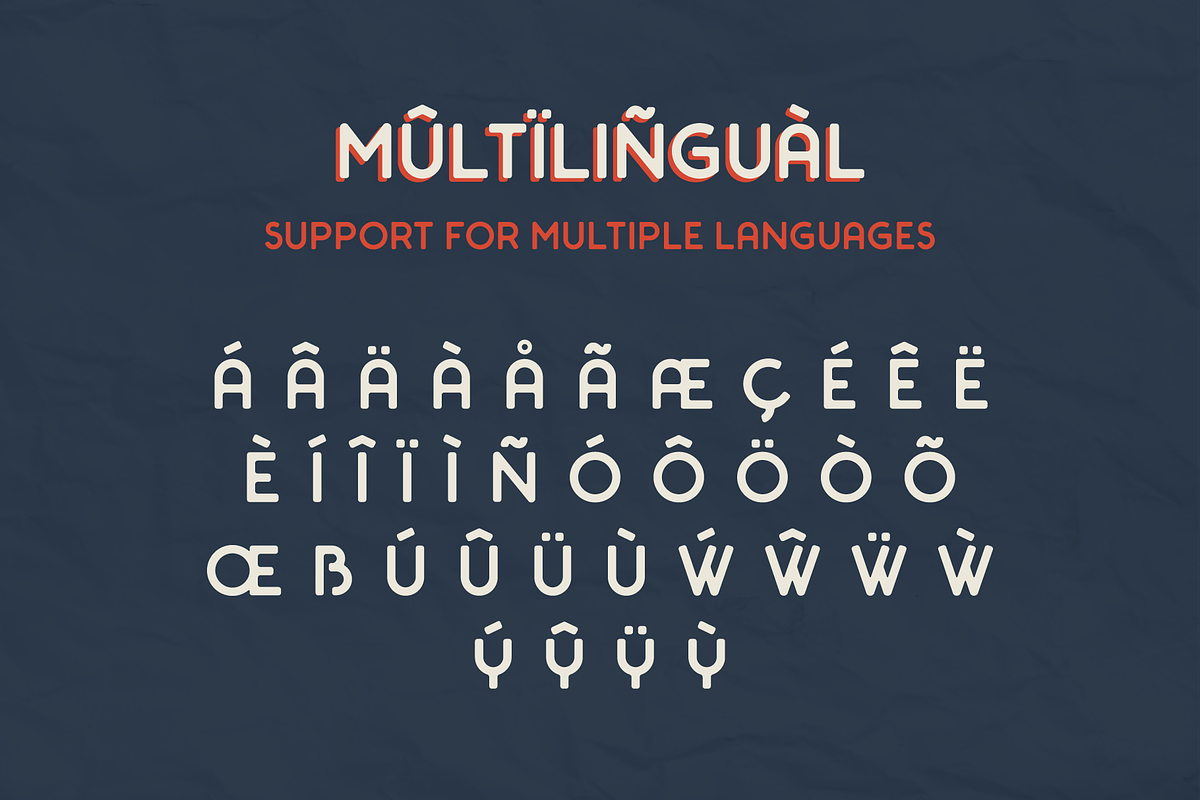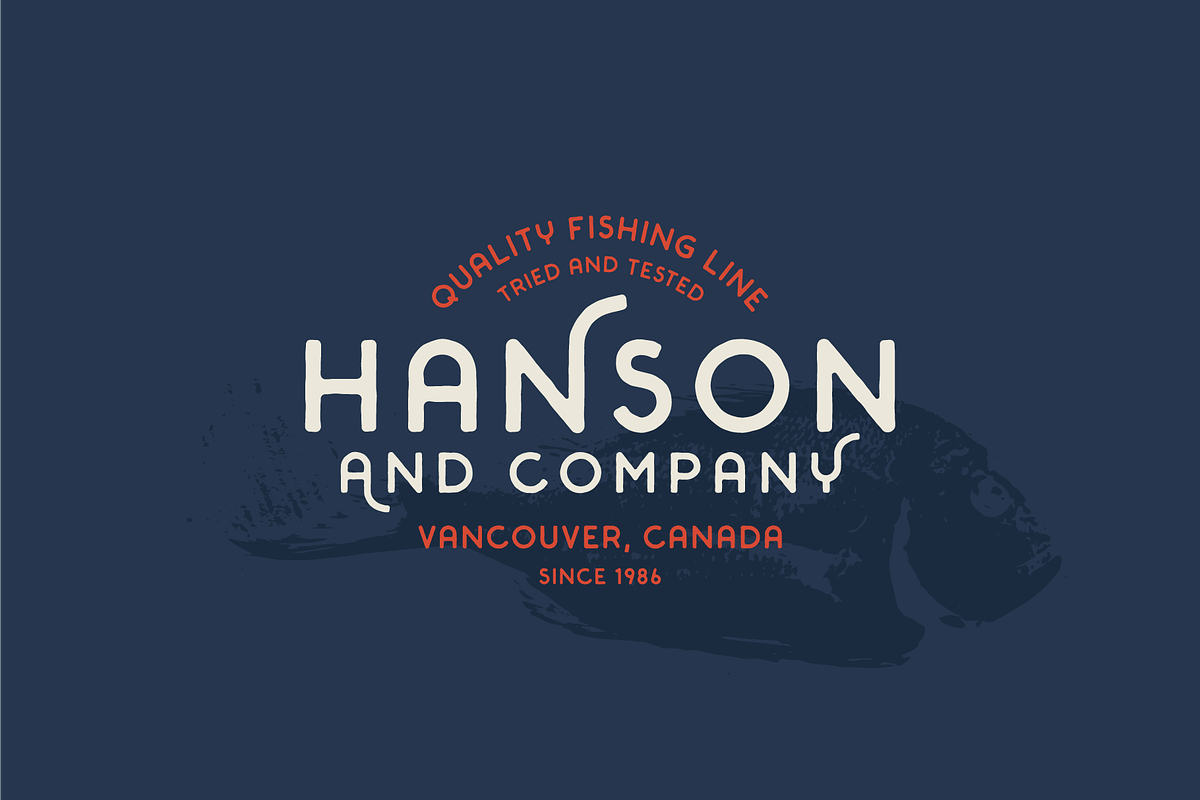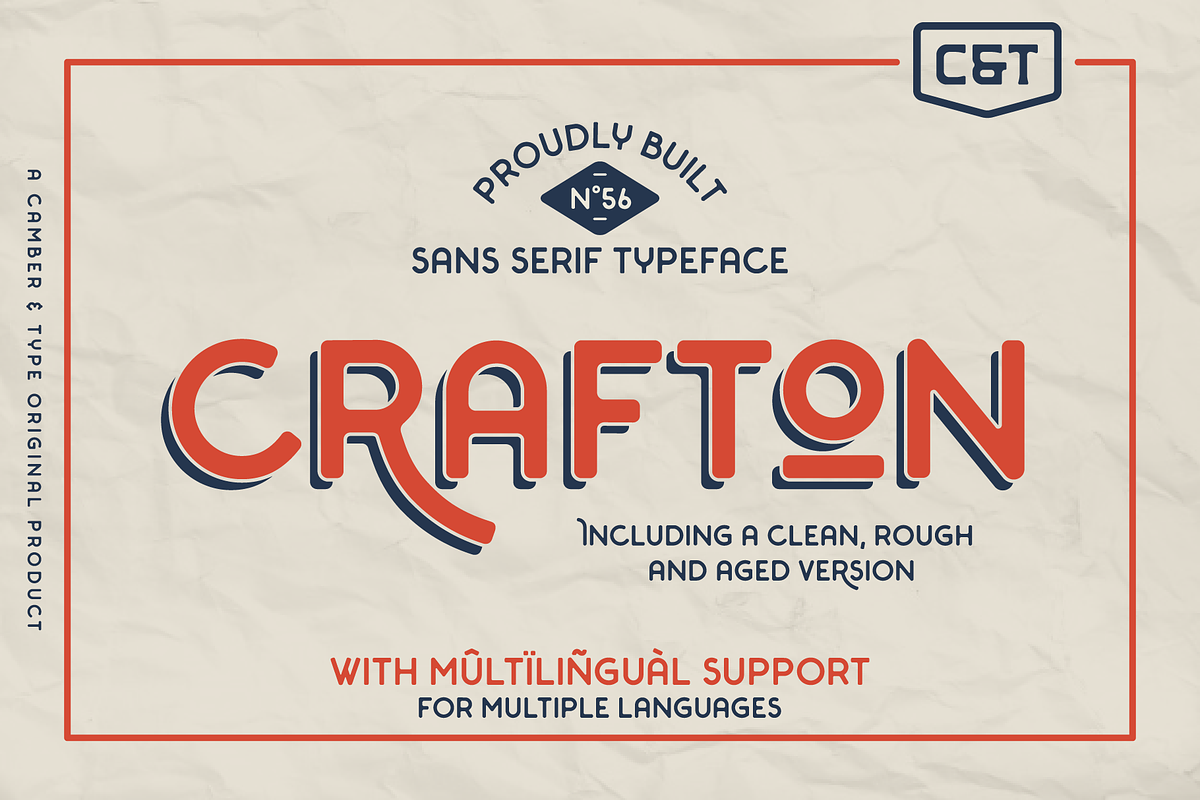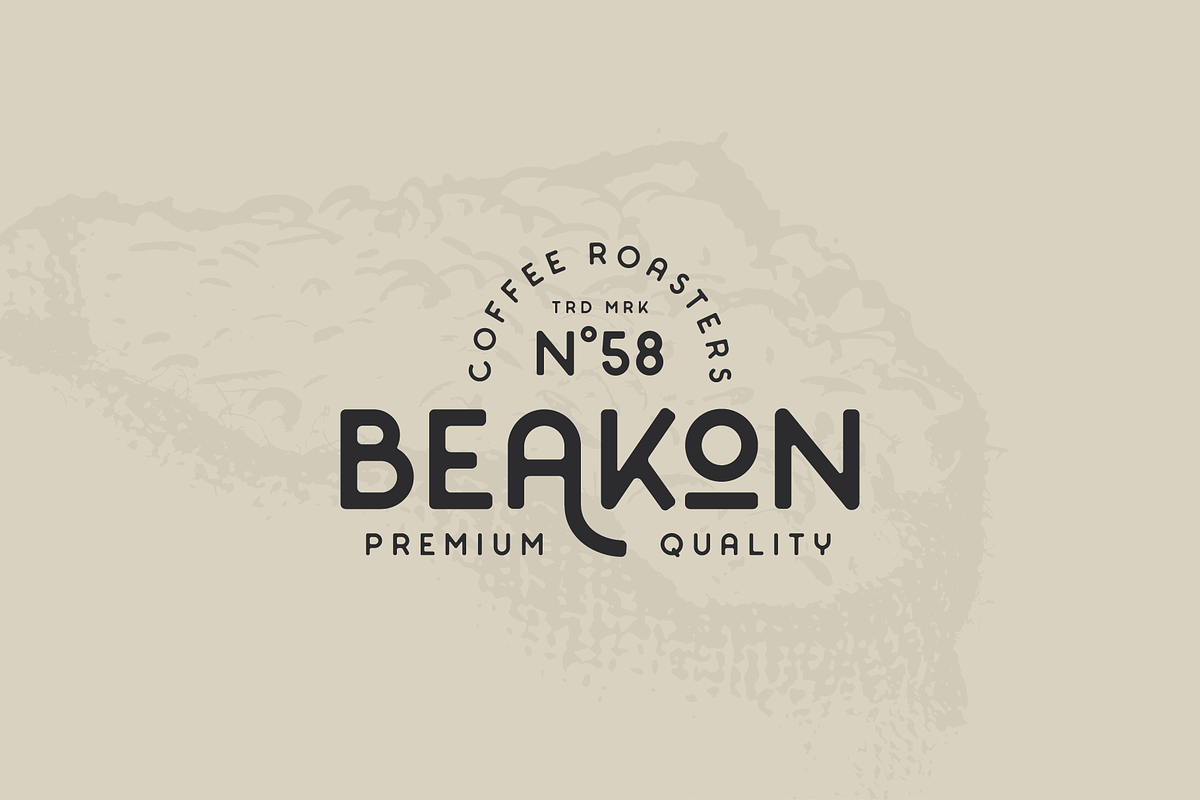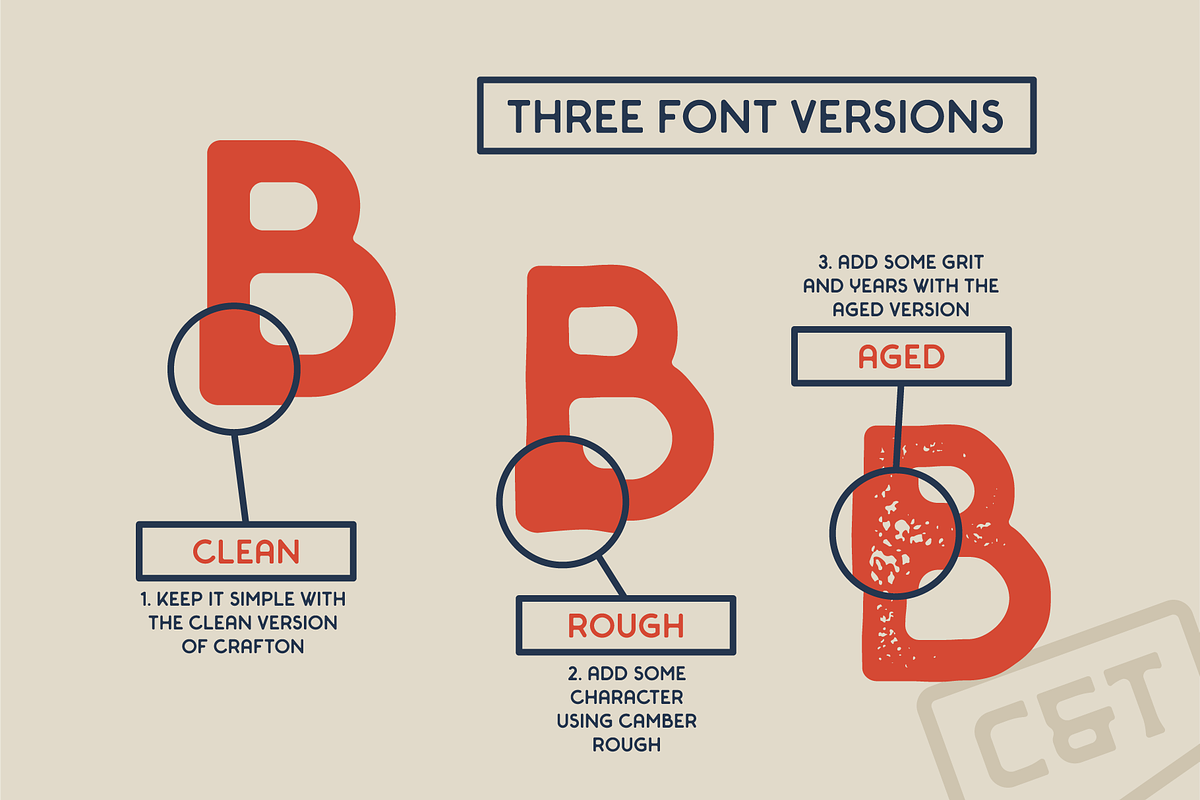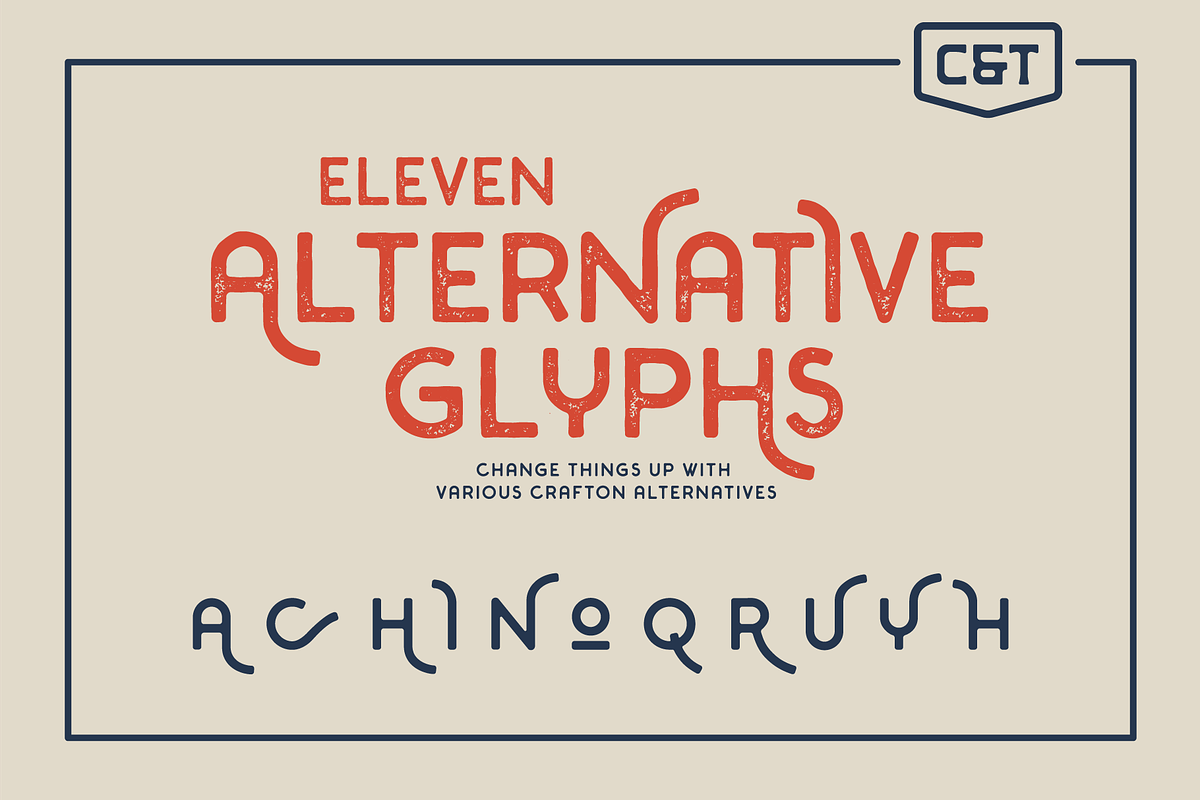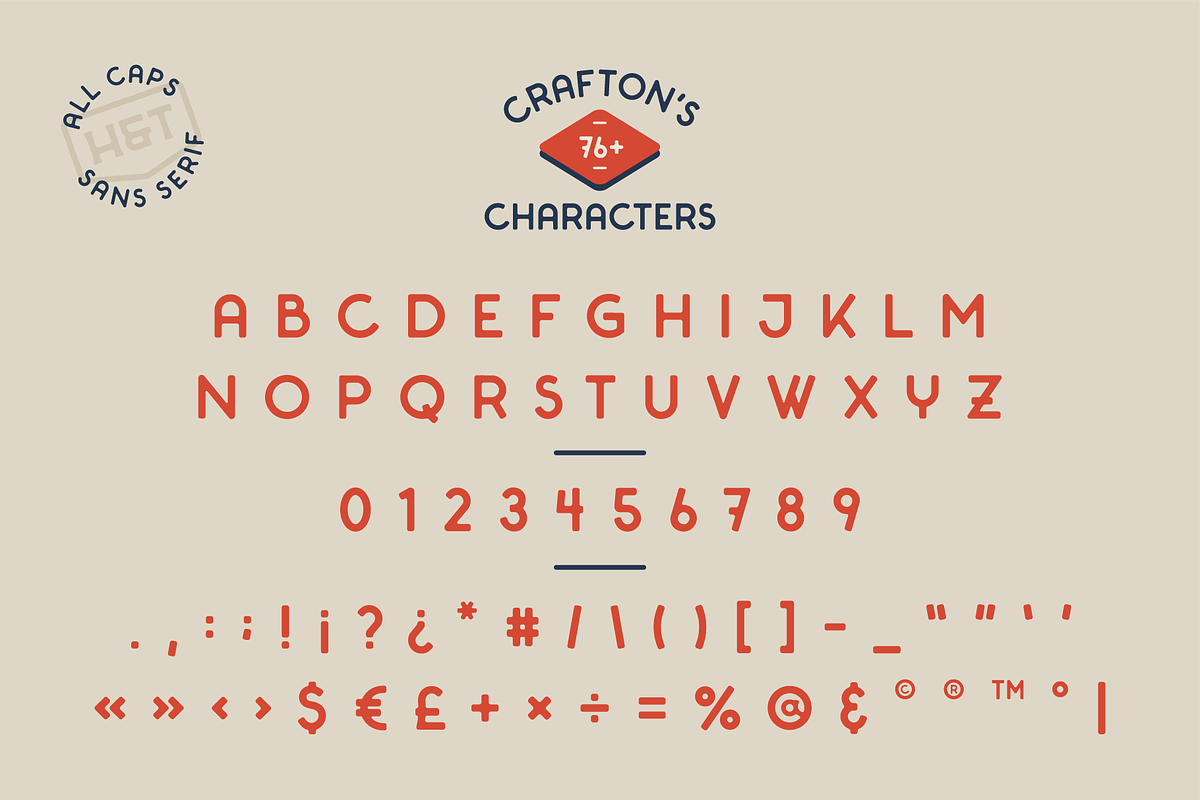
Crafton - Type Family
Introducing the Crafton typeface, a sans serif typeface made for both then and now. Inspired by a blend of old school craft beer labels and baseball games, Crafton is a versatile typeface that can be used as both a display font or a text font.
MULTILINGUAL! As a multilingual, not only is it perfect for the english language, Crafton is also suited for many other languages including german, french, spanish and many more.
3 FONT STYLES! The typeface comes with three versions (clean, rough and aged), allowing for diverse use in your projects!